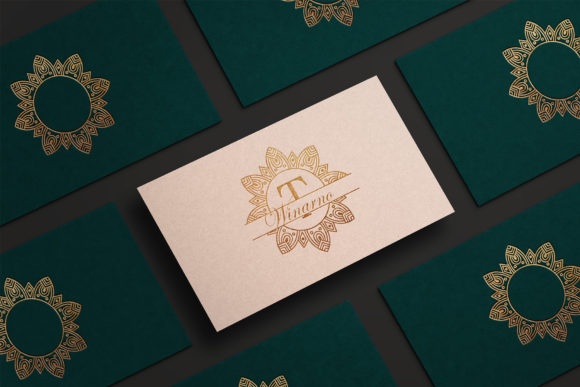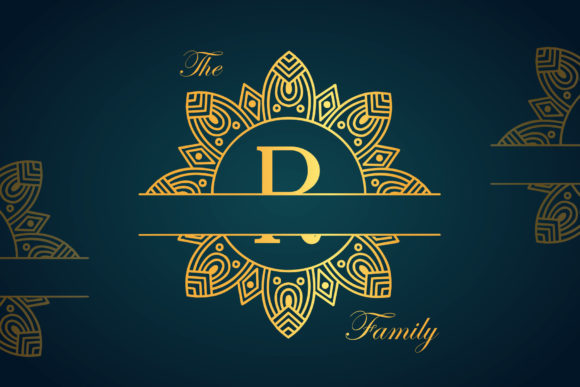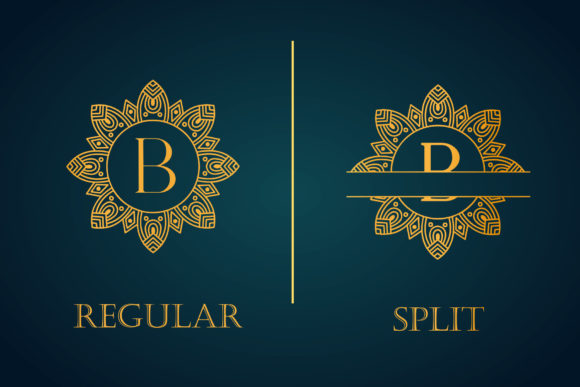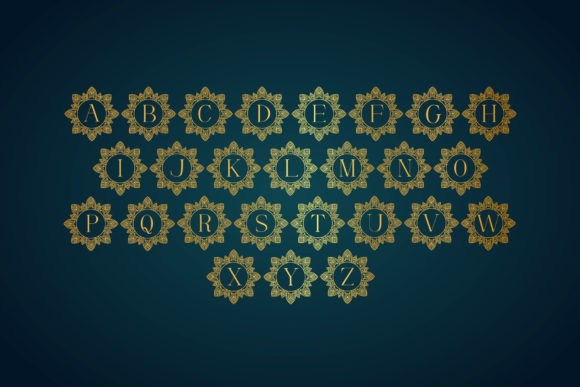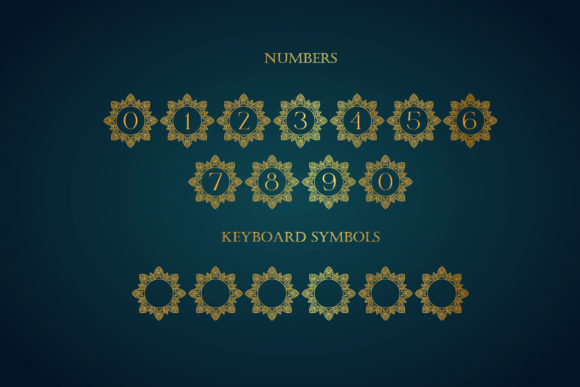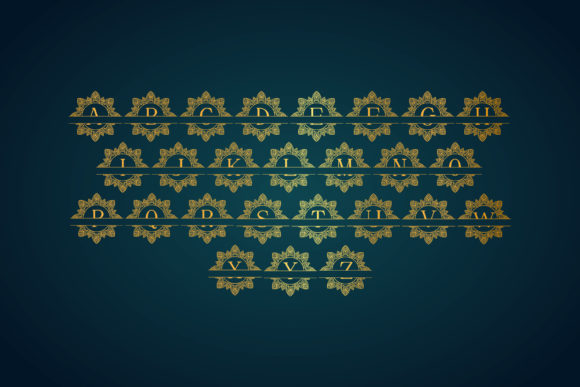
Diamond Mandala Monogram Font: Elevate Your Designs with Elegance
In the world of typography, few fonts manage to capture the essence of elegance and sophistication as effectively as the Diamond Mandala Monogram Font. This exquisite decorative font is a game-changer for designers and crafters looking to infuse their projects with a touch of luxury and refinement. In this article, we’ll delve into the unique features of the Diamond Mandala Monogram Font, explore its versatility, and discuss how it can elevate your designs to new heights.
What is Diamond Mandala Monogram Font?
Diamond Mandala Monogram Font is an elegant and genuine decorative font that boasts a distinctive, one-of-a-kind design. Its unique blend of intricate patterns and classic typography makes it an ideal choice for a wide range of design applications, from formal events and branding to personal projects and crafts.
Key Features of Diamond Mandala Monogram Font
- Unique Design: The Diamond Mandala Monogram Font features an exclusive design that sets it apart from other fonts. Its intricate patterns and diamond-shaped motifs create a visually stunning effect that’s sure to captivate your audience.
- Elegant and Sophisticated: This font exudes elegance and sophistication, making it perfect for high-end branding, luxury packaging, and formal events.
- Versatile: The Diamond Mandala Monogram Font is incredibly versatile and can be used for a wide range of design ideas, both formal and personal.
How to Use Diamond Mandala Monogram Font
The Diamond Mandala Monogram Font can be used in a variety of design applications, including:
- Branding and Logo Design: Create stunning logos and brand identities with this elegant font.
- Stationery and Invitations: Add a touch of luxury to your stationery, invitations, and greeting cards.
- Packaging Design: Elevate your packaging design with this sophisticated font.
- Crafting and DIY Projects: Use this font to create beautiful crafts, such as monogrammed towels, wall art, and more.
Tips for Working with Diamond Mandala Monogram Font
- Experiment with Colors: Try pairing the Diamond Mandala Monogram Font with different colors to create unique and eye-catching effects.
- Mix and Match: Combine this font with other fonts to create interesting and dynamic typography.
- Pay Attention to Size: Make sure to adjust the font size according to your design needs to ensure optimal readability and impact.
Why Choose Diamond Mandala Monogram Font?
With so many fonts available, why choose the Diamond Mandala Monogram Font? Here are just a few reasons:
- Unique Design: This font offers a one-of-a-kind design that’s sure to make your designs stand out.
- Elegance and Sophistication: The Diamond Mandala Monogram Font exudes luxury and refinement, making it perfect for high-end designs.
- Versatility: This font can be used for a wide range of design applications, making it a valuable addition to your font library.
In conclusion, the Diamond Mandala Monogram Font is a stunning decorative font that offers elegance, sophistication, and versatility. Whether you’re a designer, crafter, or DIY enthusiast, this font is sure to elevate your designs and help you create something truly special. With its unique design, ease of use, and flexibility, the Diamond Mandala Monogram Font is an excellent choice for anyone looking to add a touch of luxury to their projects.